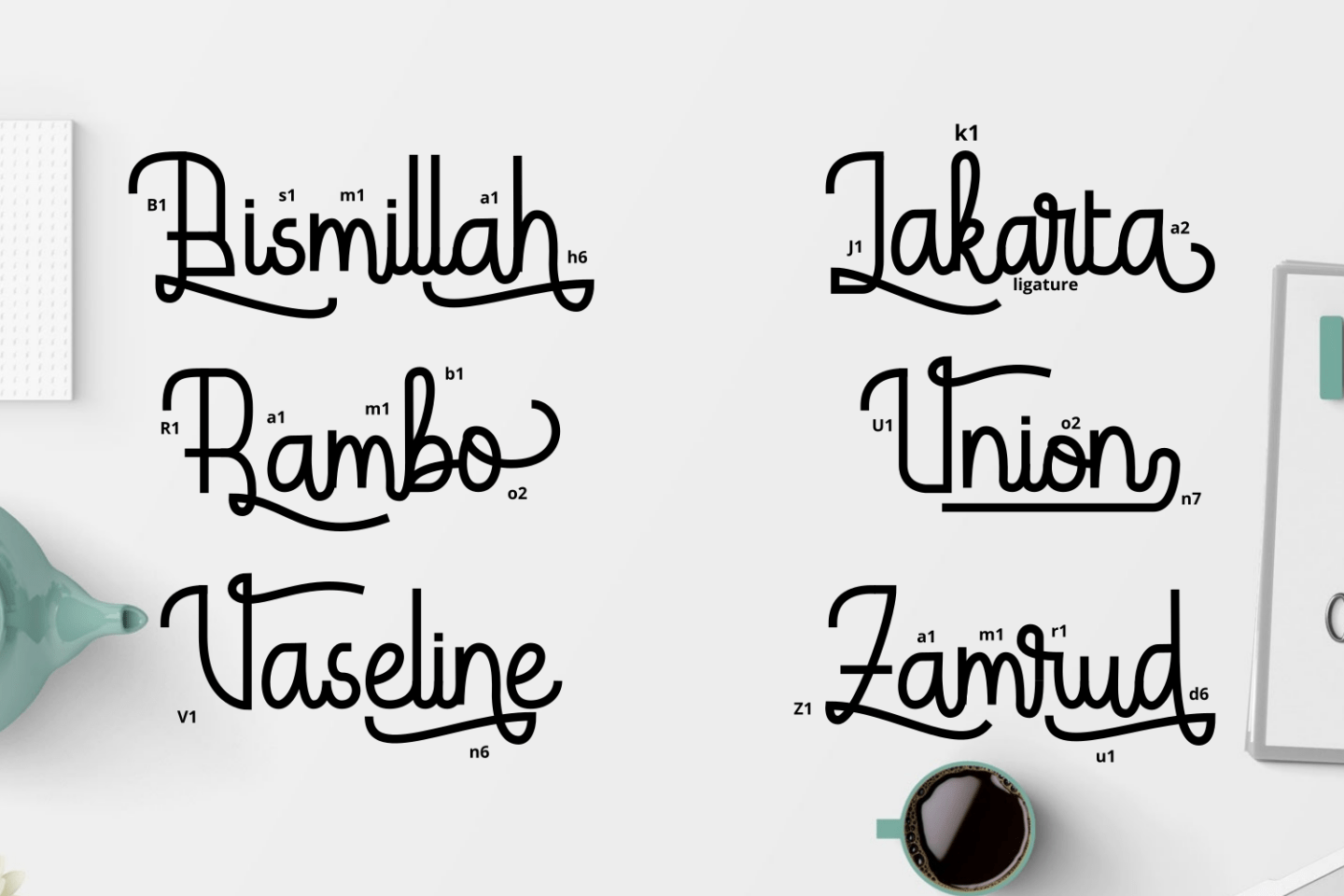
Hardolyn Script Font
As time goes by,seeing development of script fonts is very growing,we are trying to make a new and certainly unique script font ! And this is Hardolyn Script Fonta unique script font from us.Hardolyn is suitable for your needs such as quote,invitation,advertising,logo,posters,headline,web headline,clothes,and many more.No Limitations.
Not only that,Hardolyn also comes with up to 7 alternate glyphs for lowercase and total of glyphs is more than 350 glyphs! which will make your needs more attractive!